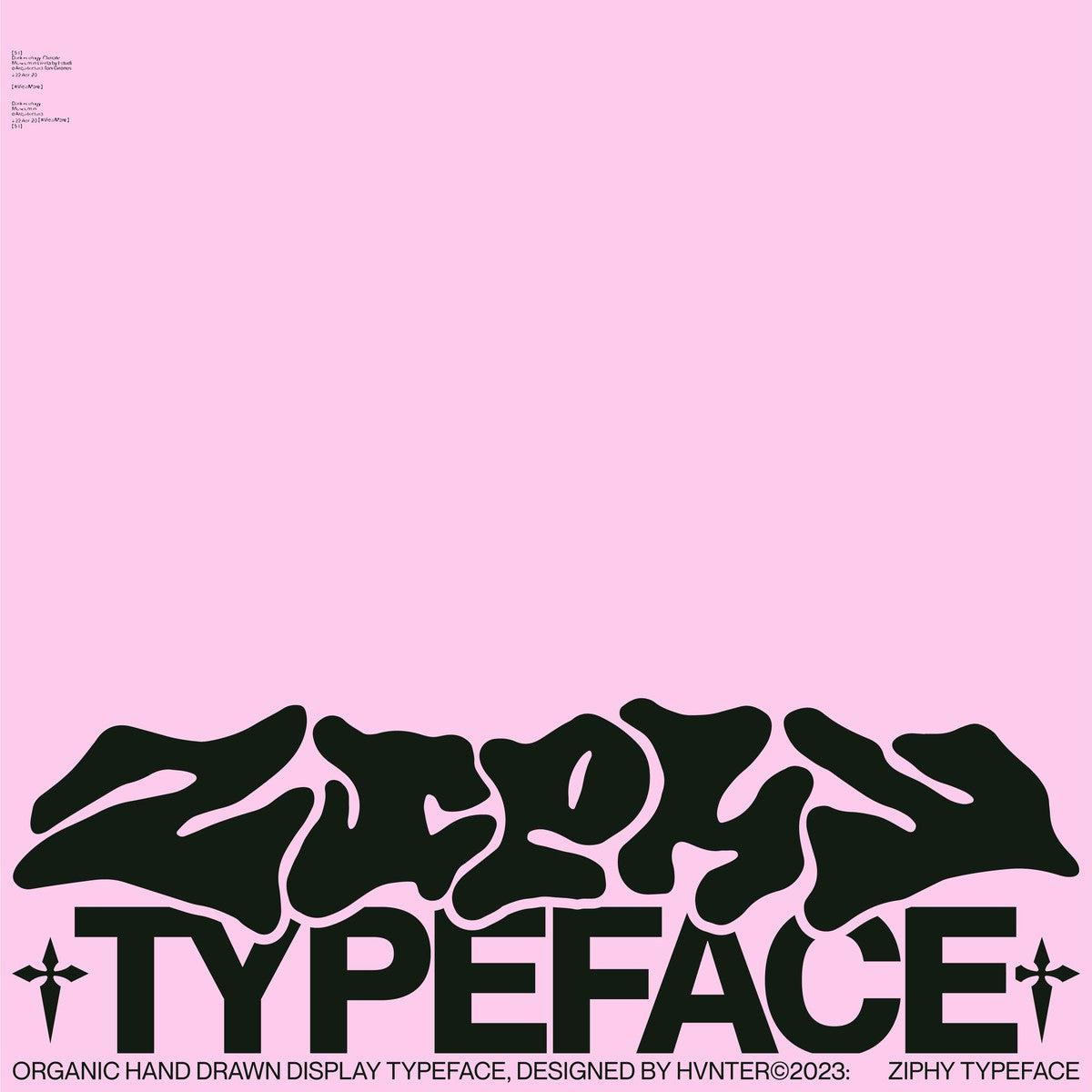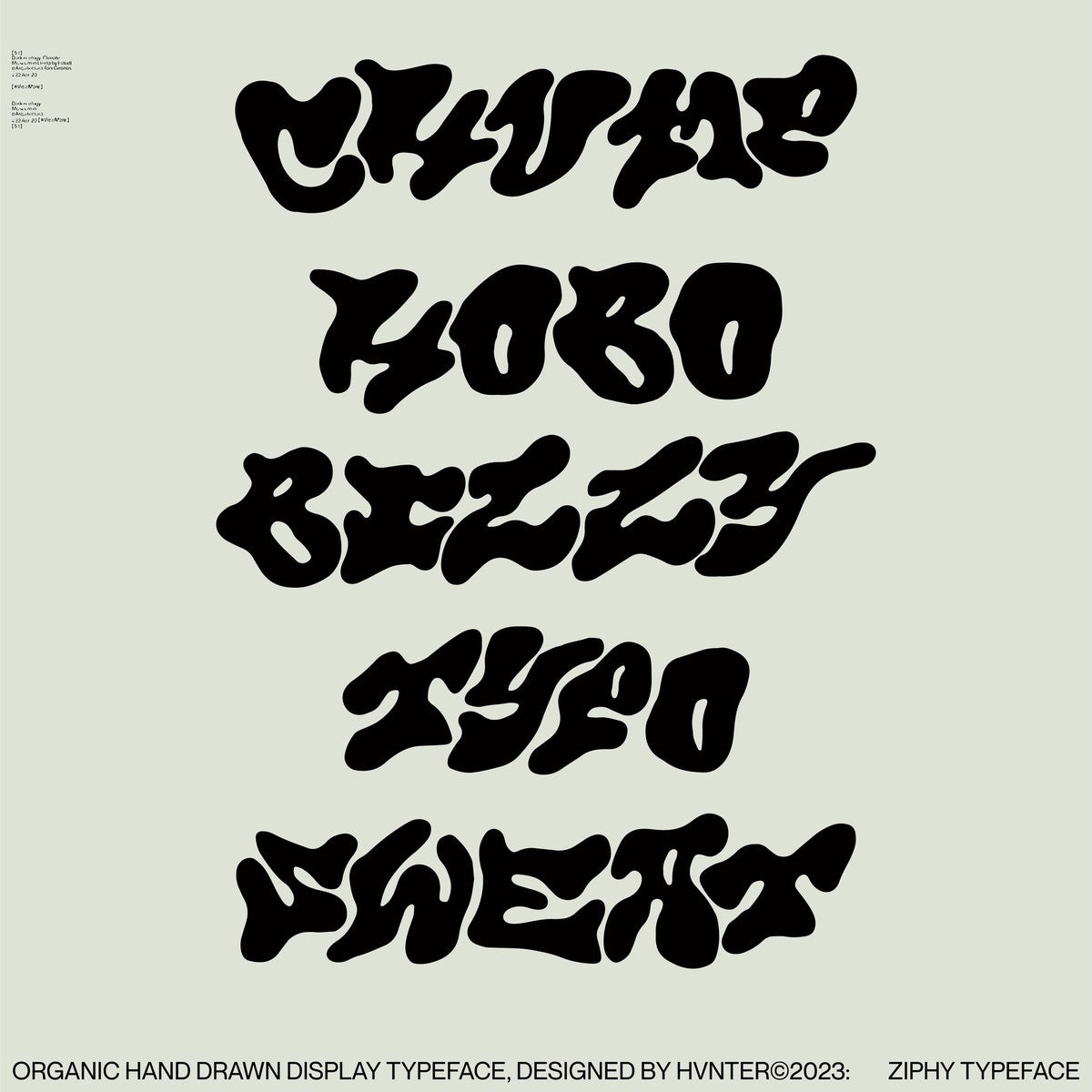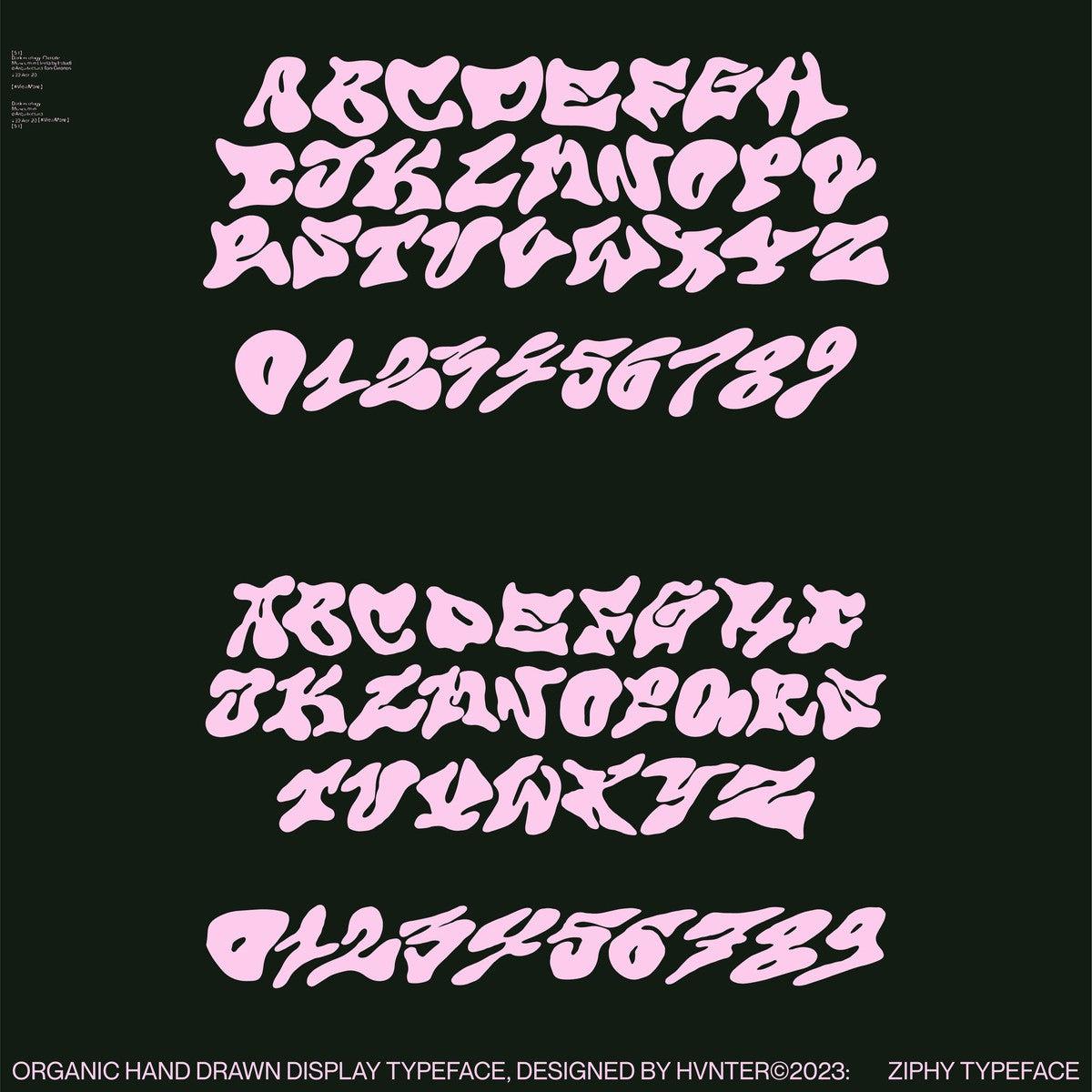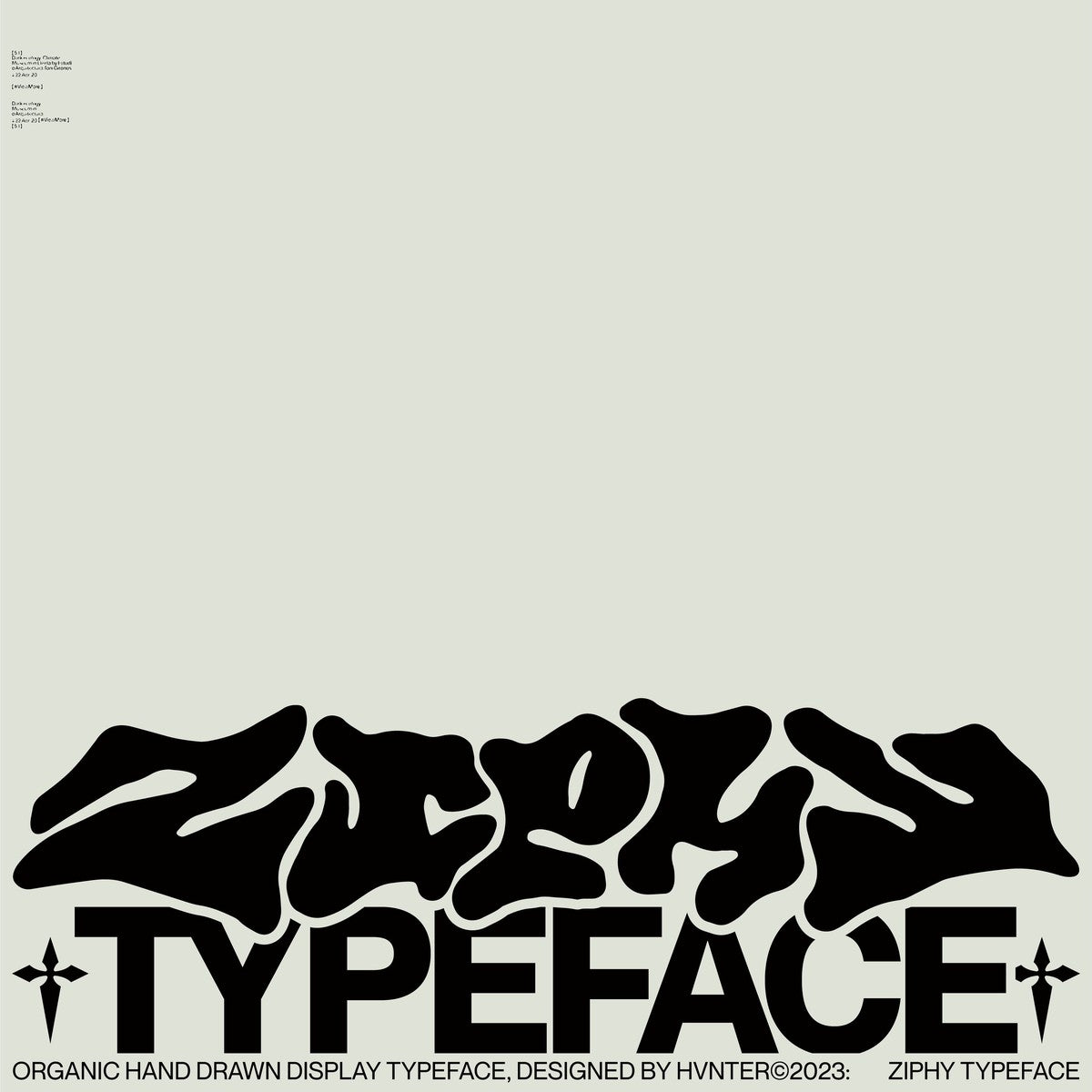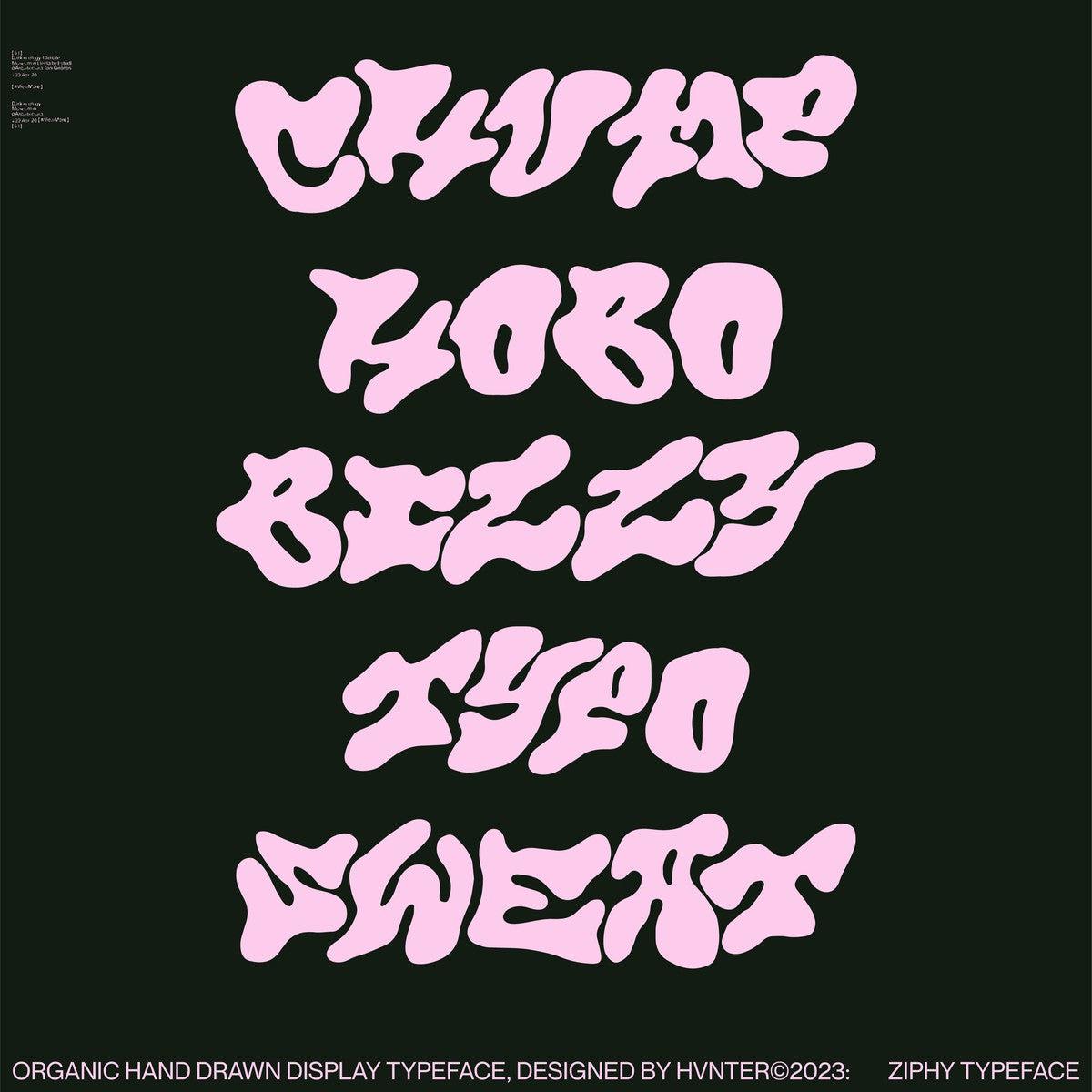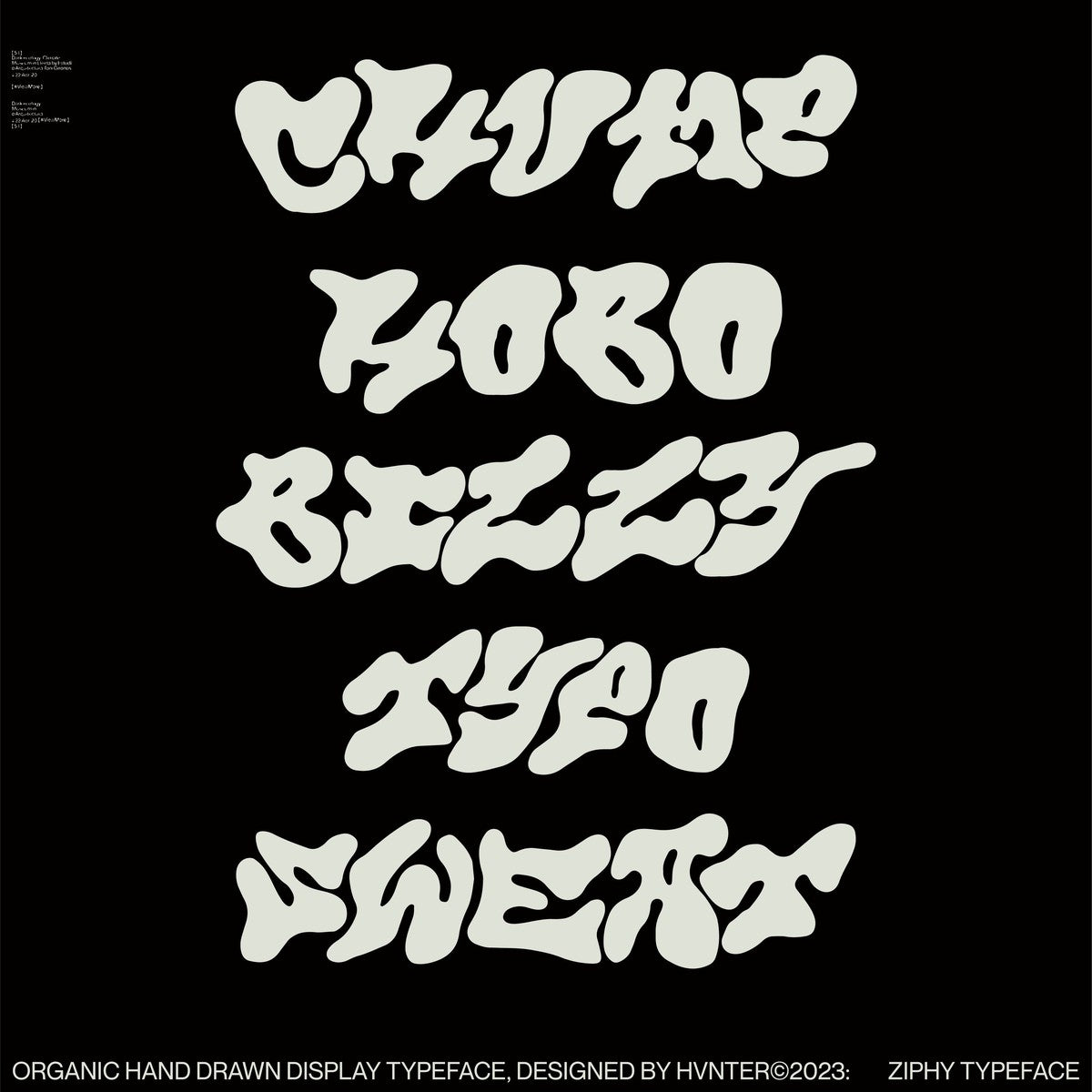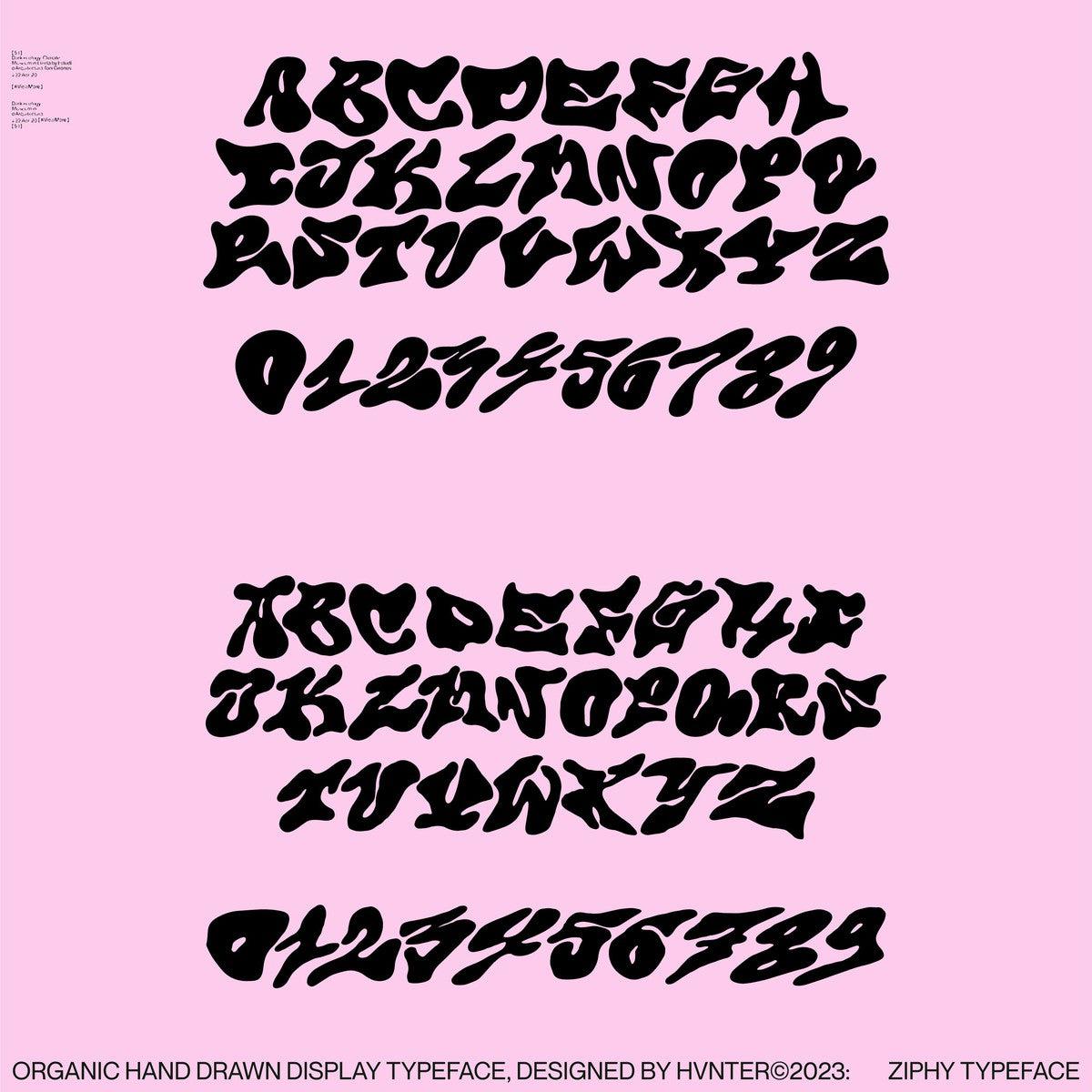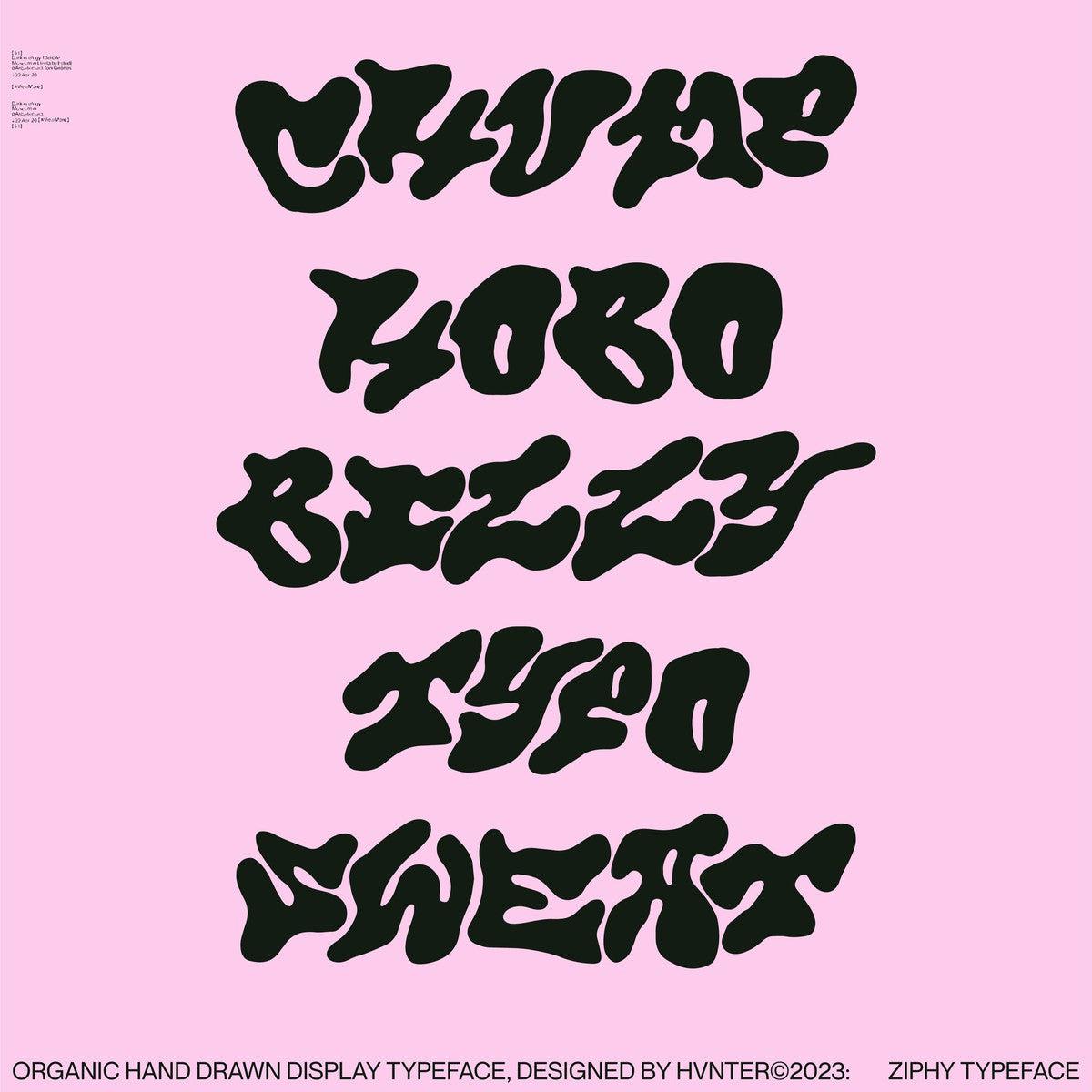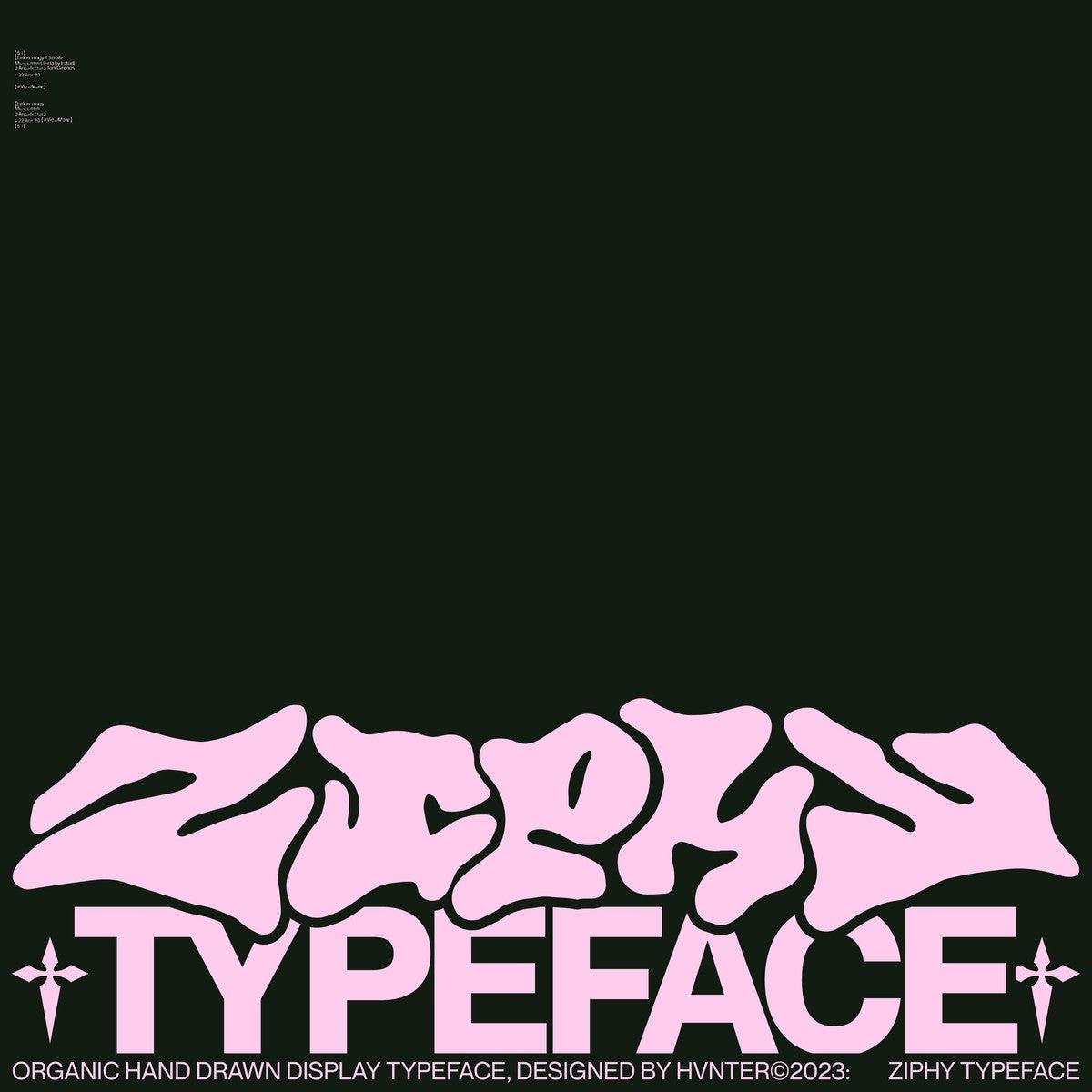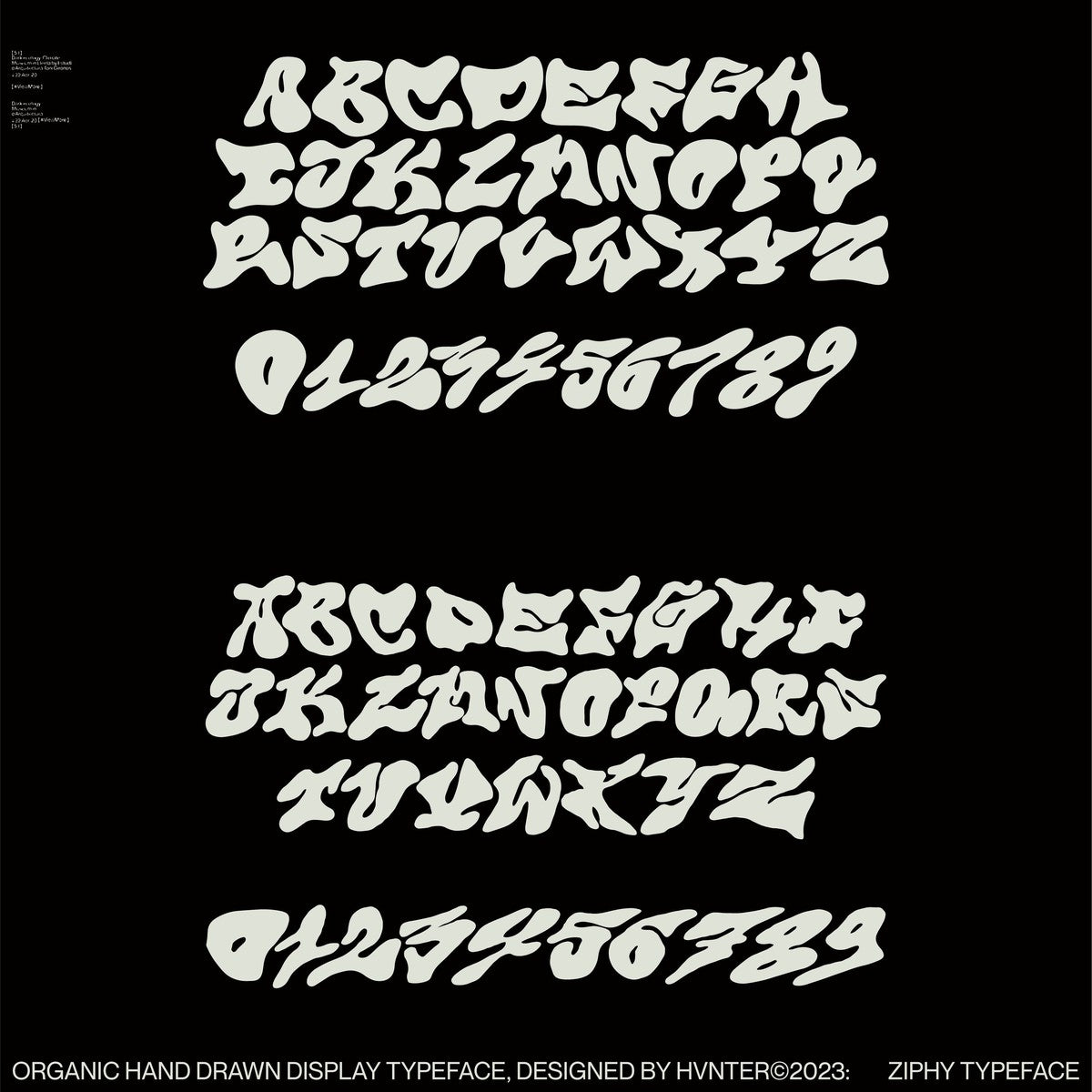
ZIPHY Typeface
The ZIPHY Typeface is a hand-drawn abstract font that includes alphabets from A-Z and numbers from 0-9 in an .otf font file. It's characterized by its graffiti, streetwear, and bubble font styles.
Ideal for contemporary graphic design and streetwear branding. Perfect for posters, album covers, and merchandise, ensuring a unique and artistic touch that captures attention and enhances visual storytelling.